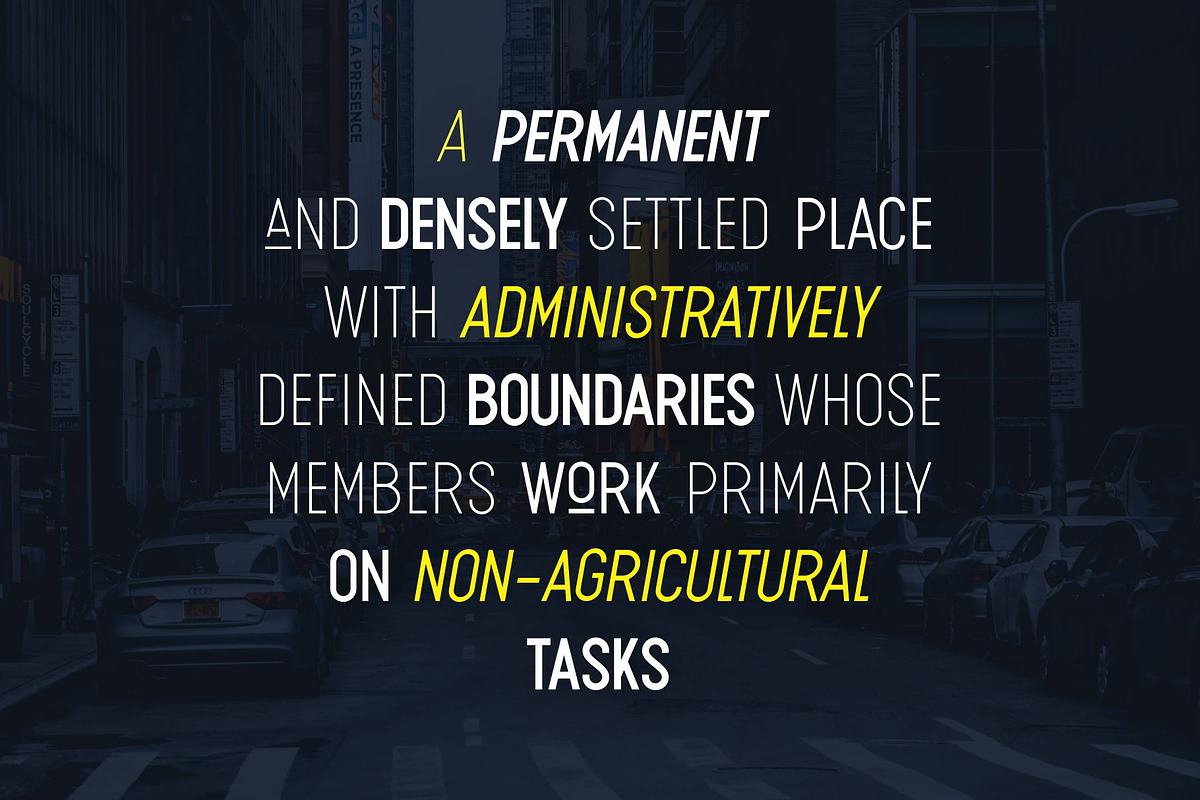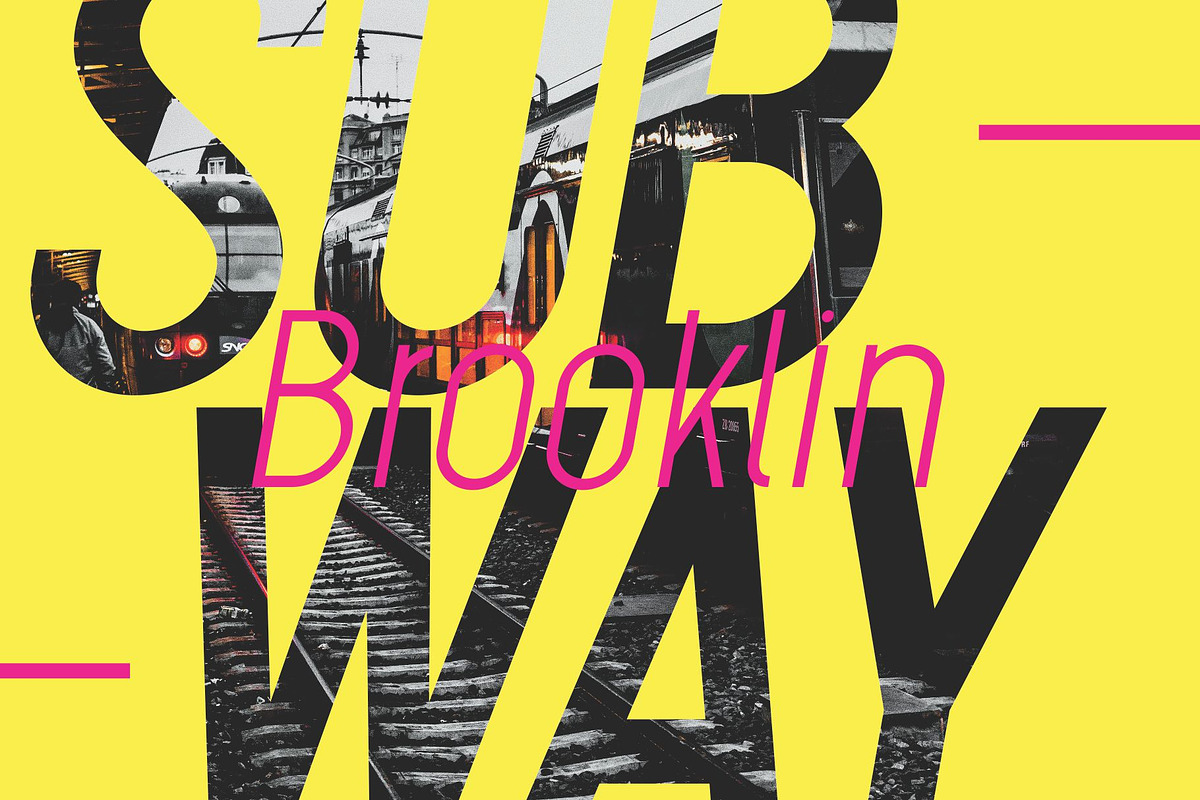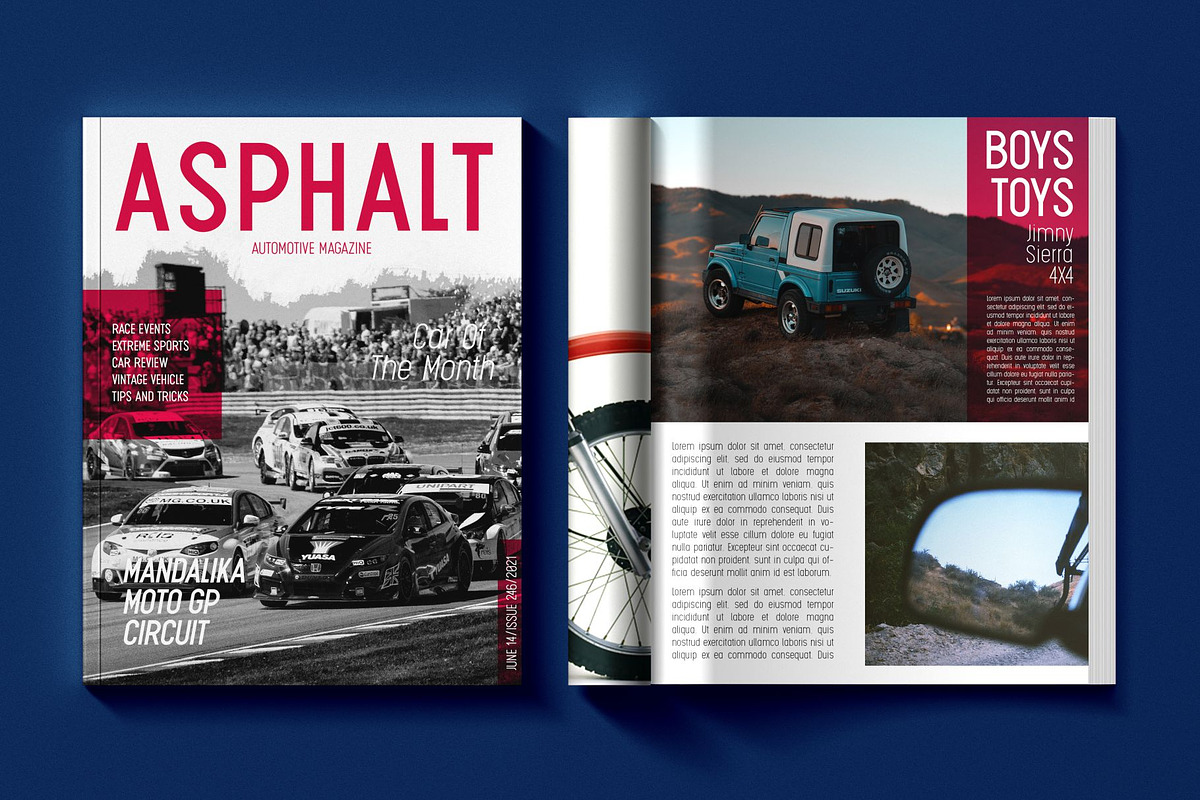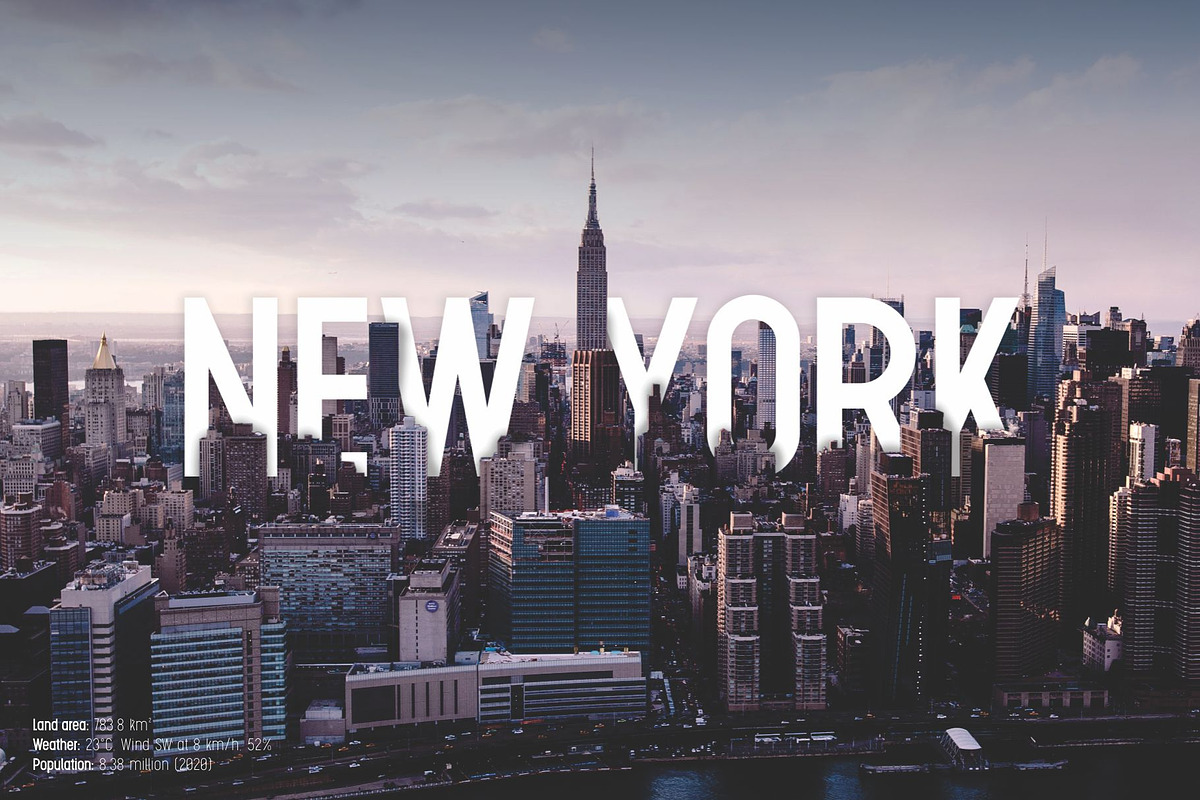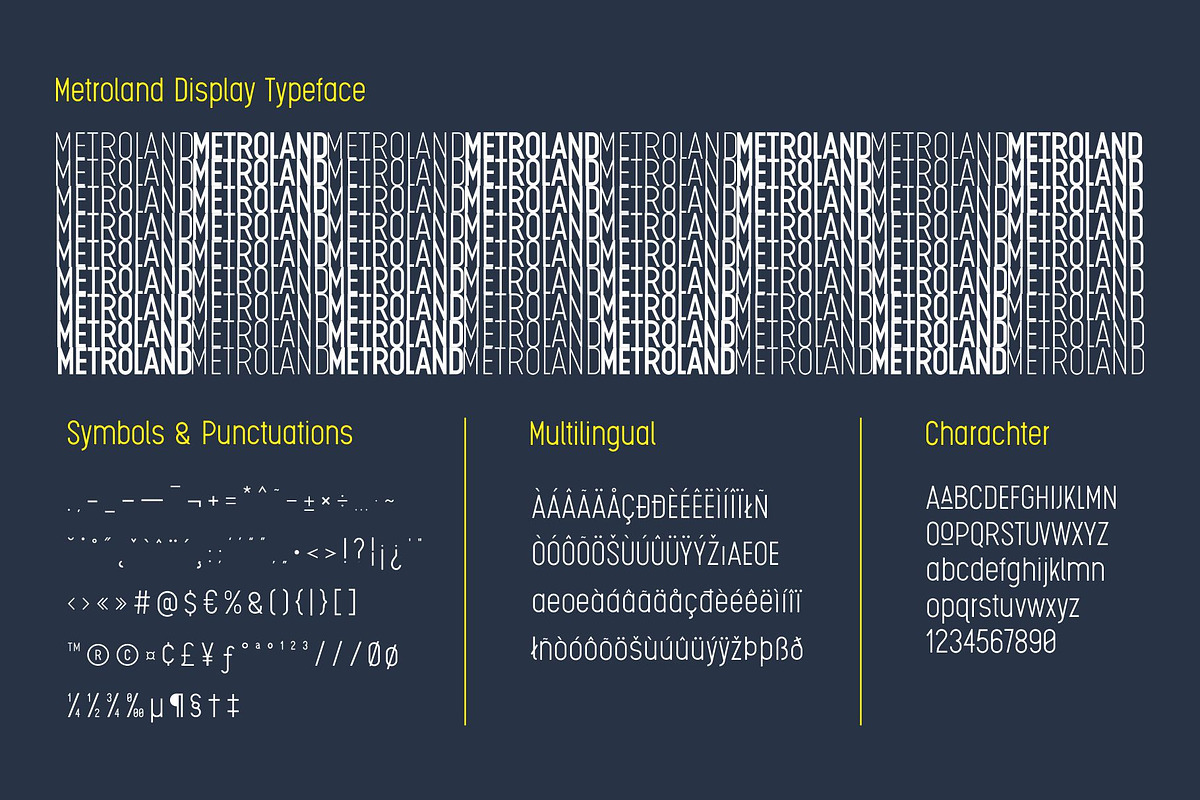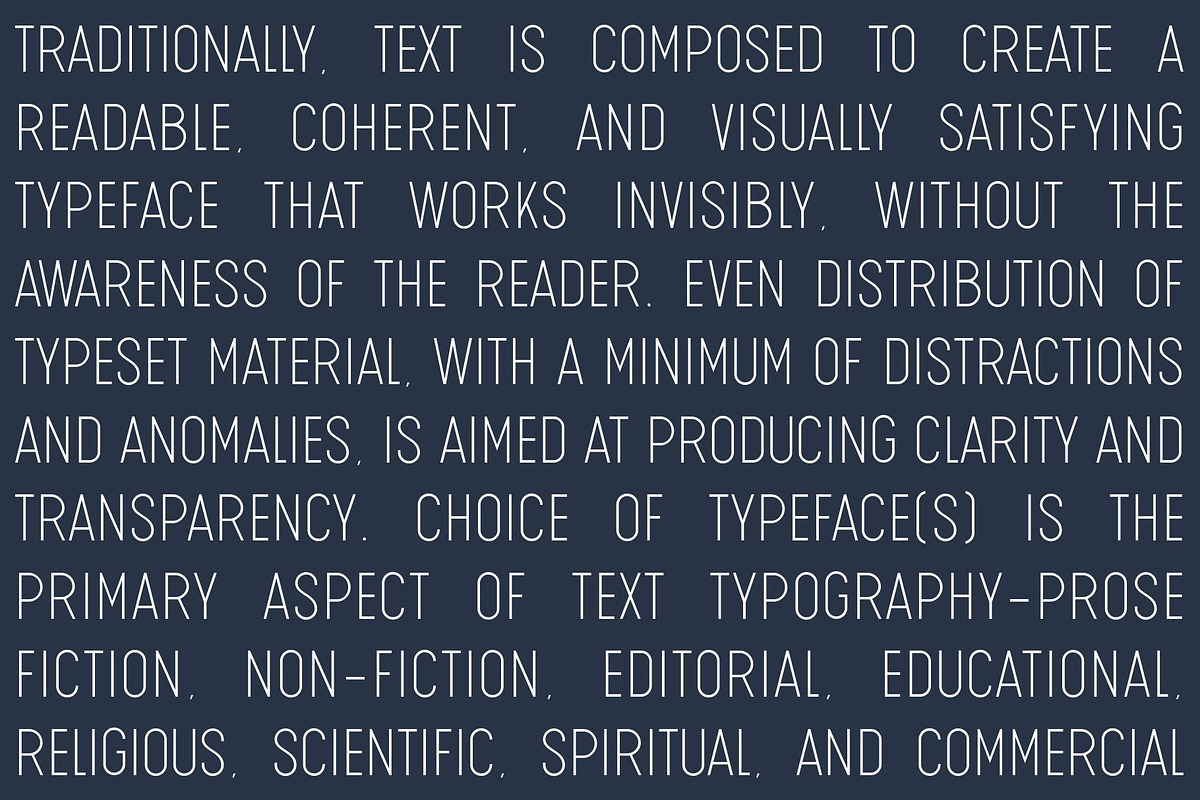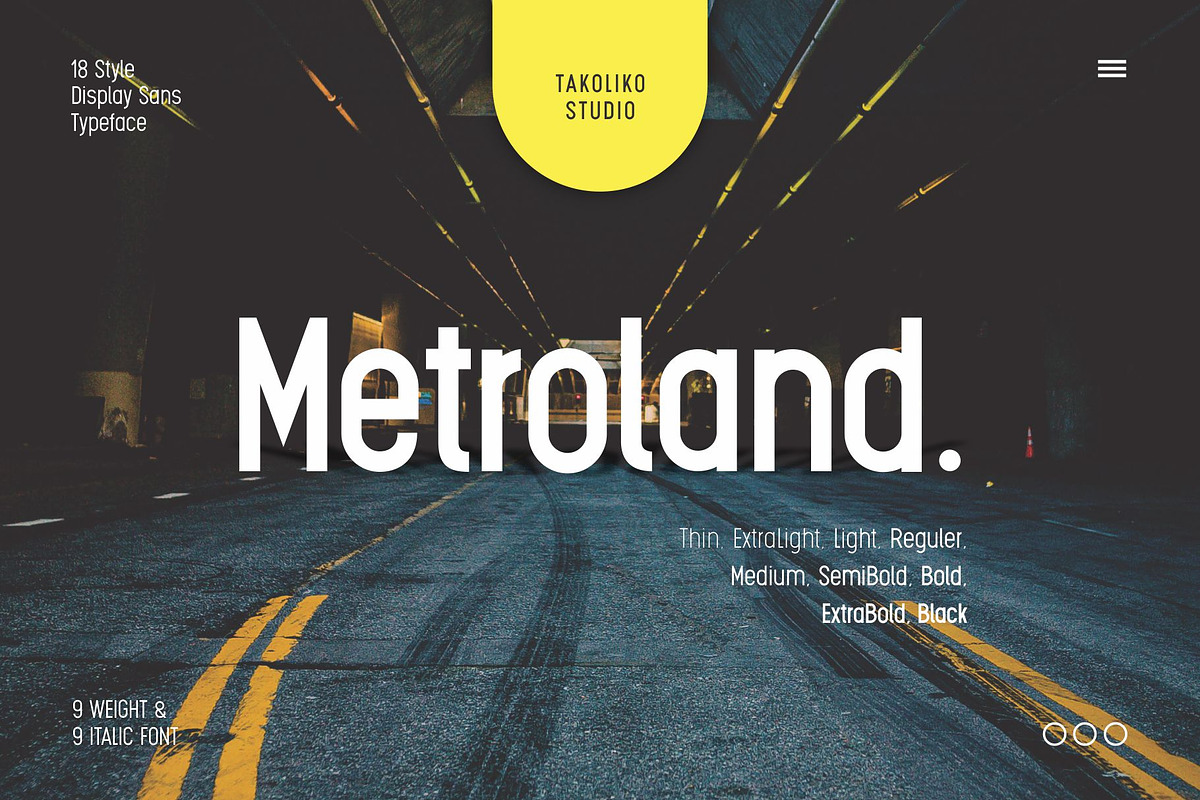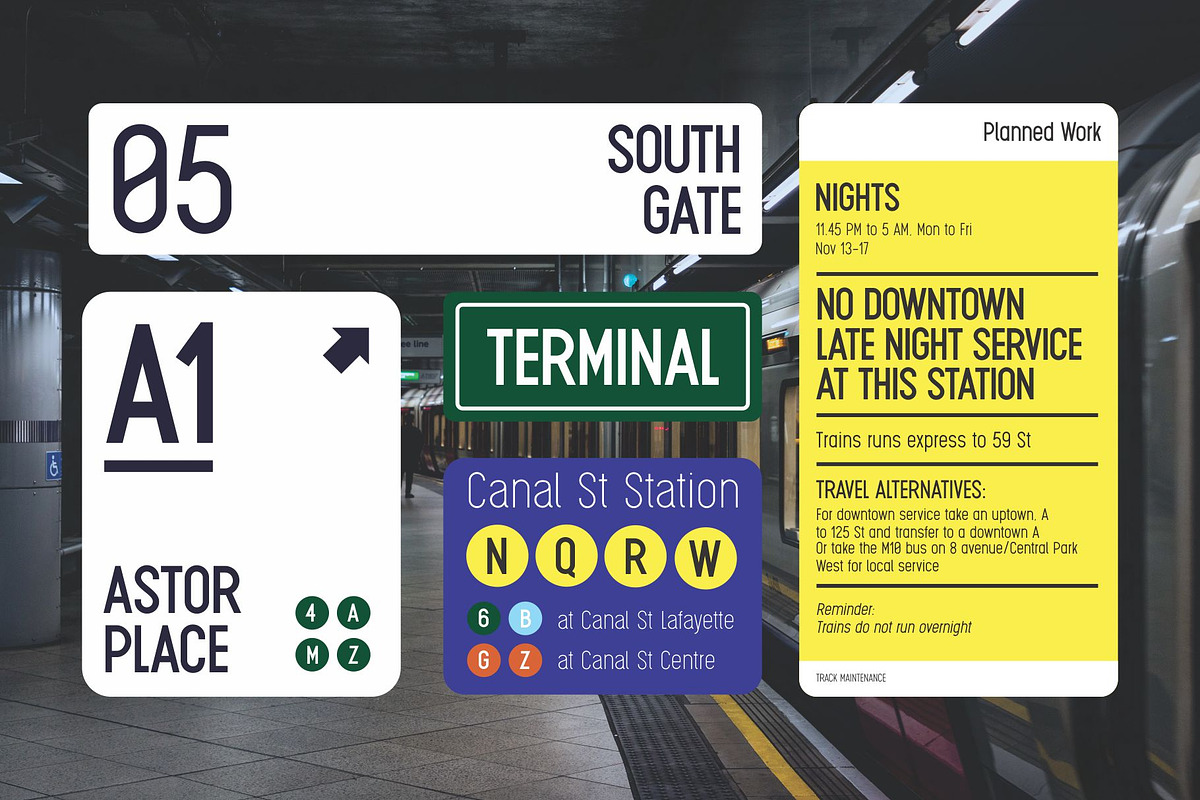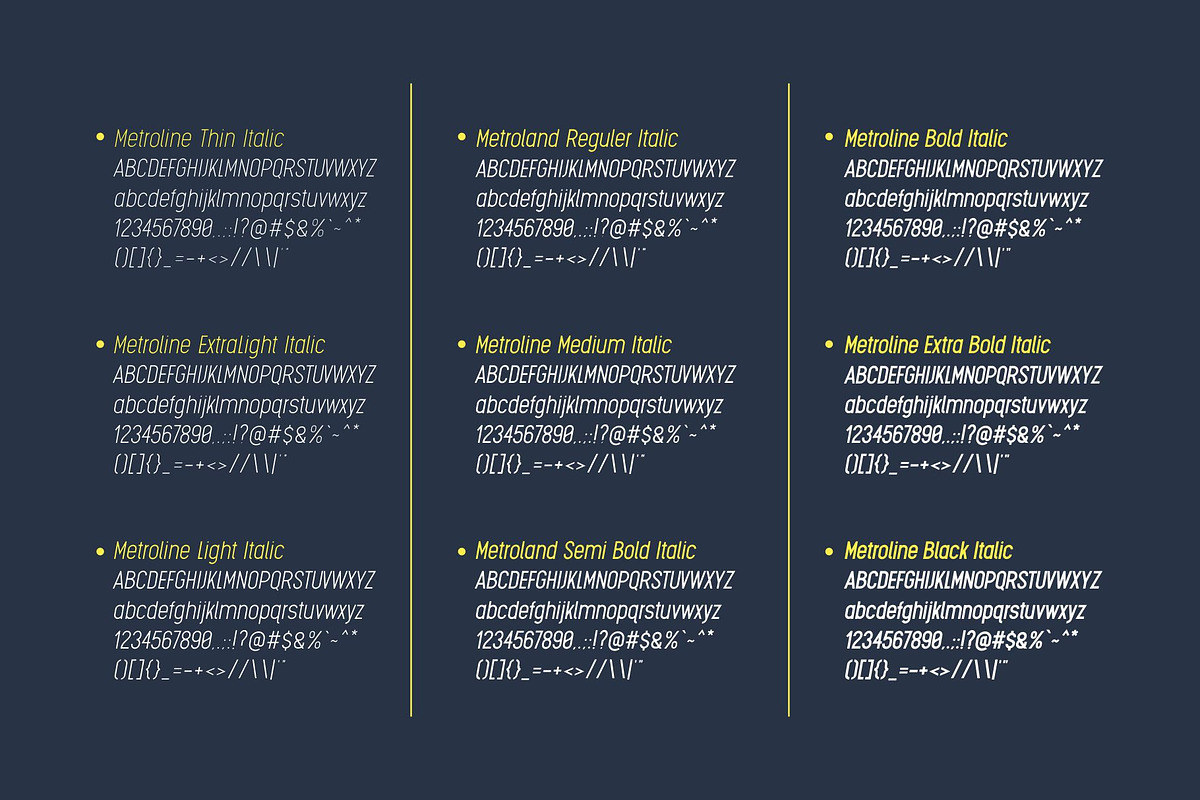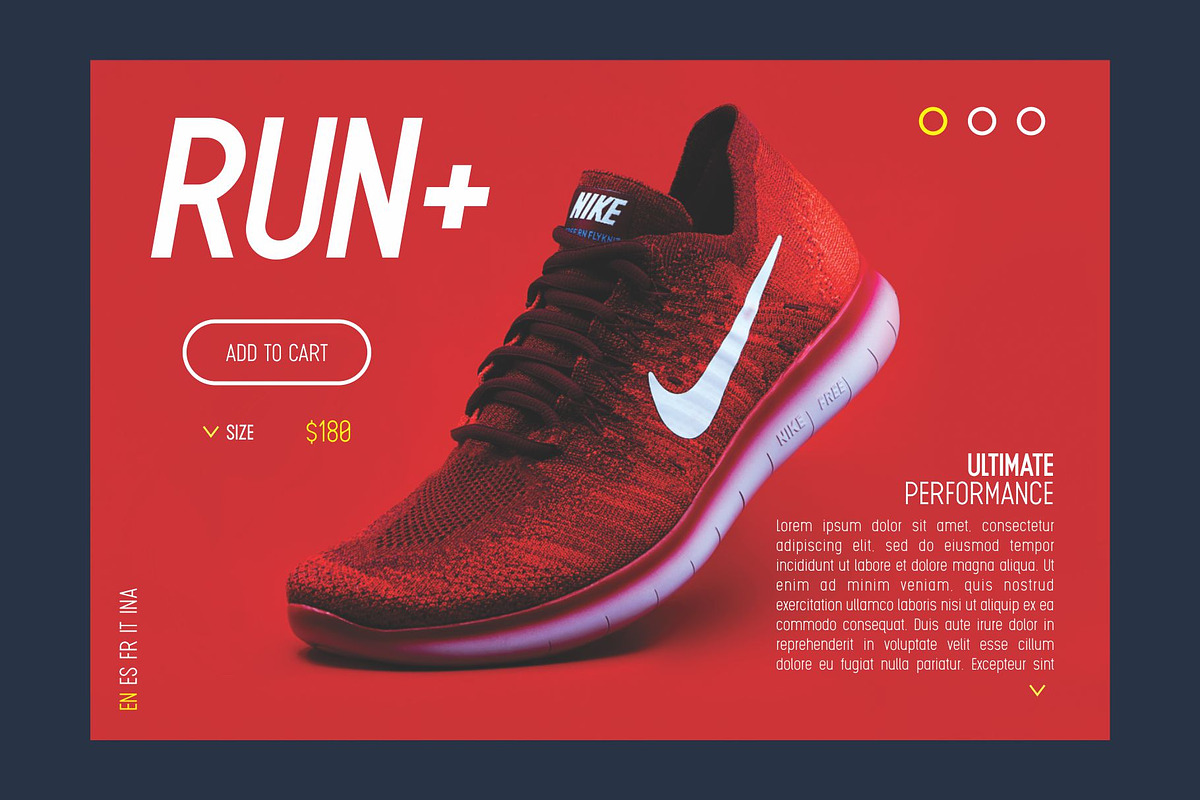
Metroland
Hello. Introducing our Display sans serif typeface "Metroland"
Metroland inspired by urban and modern life on a metropolis city. Metroland have a Subway vibe and a transportation theme that relate to our routine. Metroland is simple and modern sans serif display family font. it has a monoline geometric, and simple atmosphere. Metroland came with 9 weight and 9 italic fonts. It can easily be matched to an incredibly large set of projects, and good for communicating your brands.